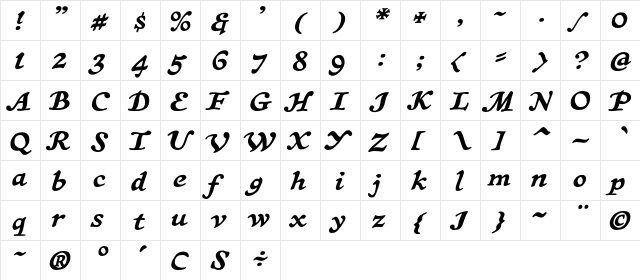
CCTreasureTrove Italic Font Preview
CCTreasureTrove Italic
CCTreasureTrove Italic Font Details
| Foundry | Active Images |
| Designer | John Roshell |
Design Context for CCTreasureTrove Typeface
CCTreasureTrove wears its vintage influences proudly, with letterforms that recall mid-century signage, classic packaging, and nostalgia-driven design. Its italic angle brings a sense of urgency and motion to the letterforms.
Font Pairing: Combine CCTreasureTrove with a simple slab or neutral sans — period-accurate companions reinforce the vintage feel without competing for attention.
Pro Tip: Use CCTreasureTrove for headlines and pull quotes rather than body copy — its personality is best appreciated in short, focused bursts.